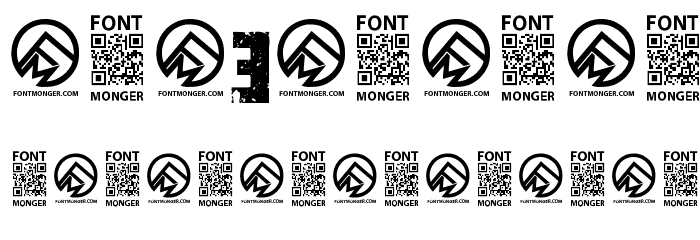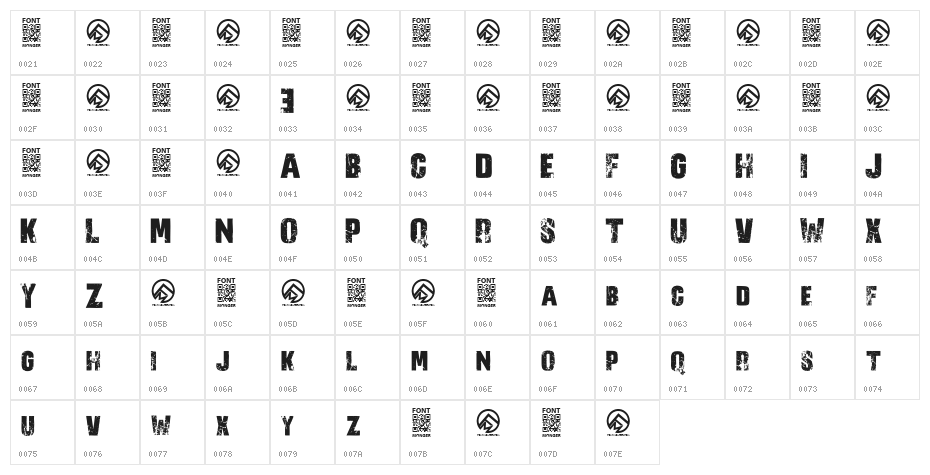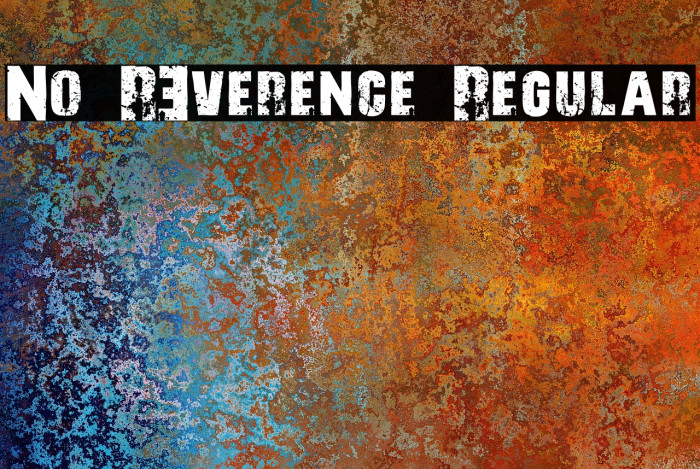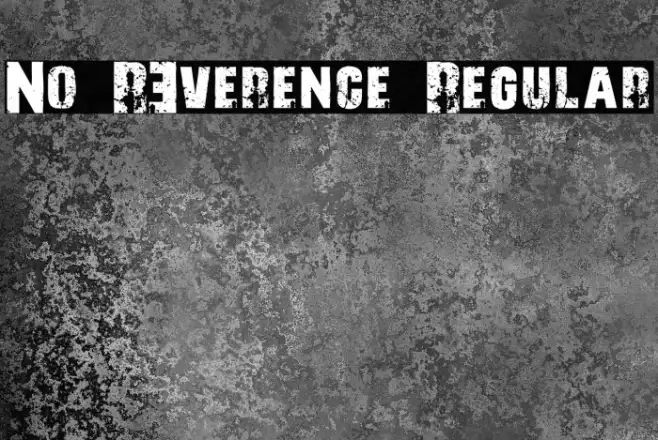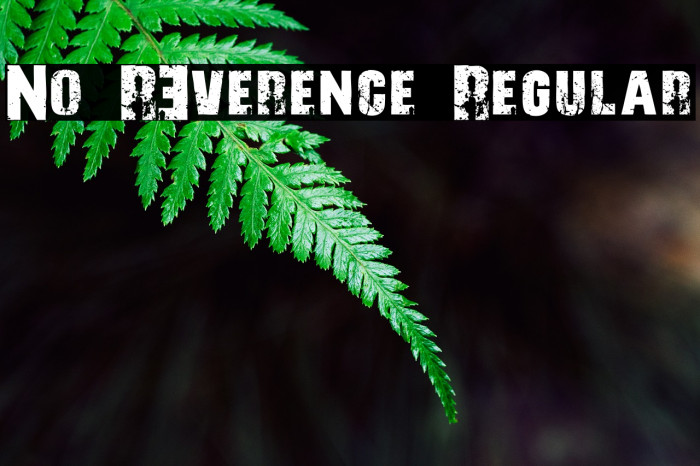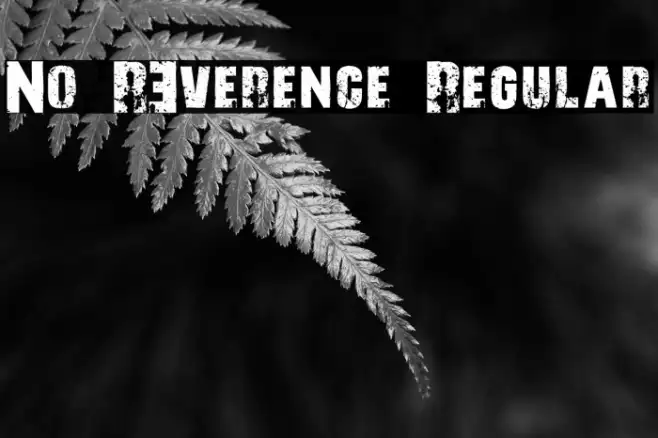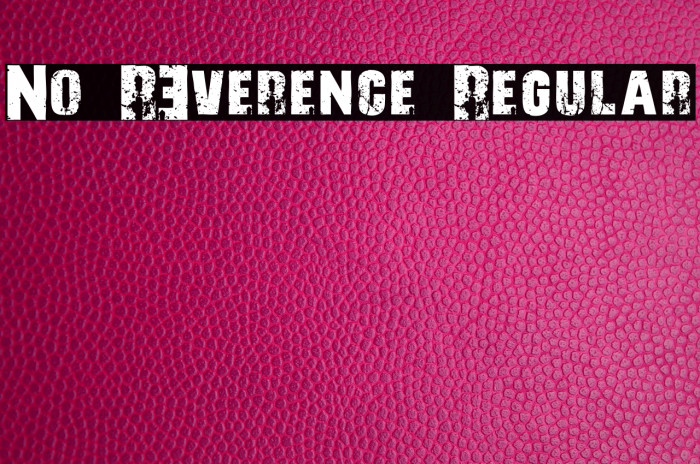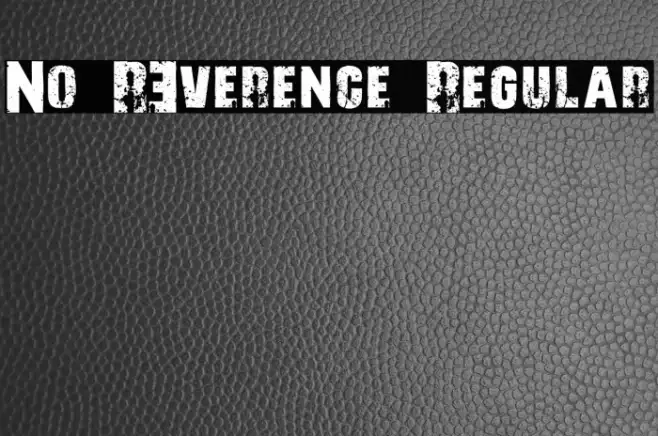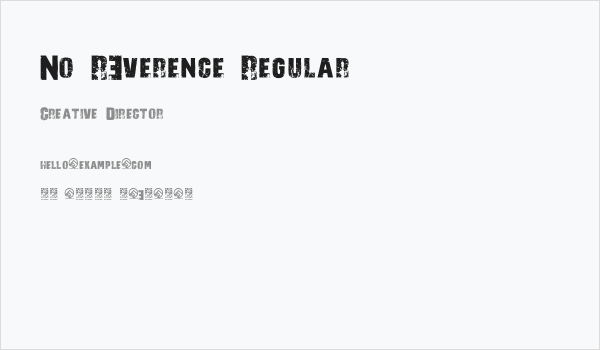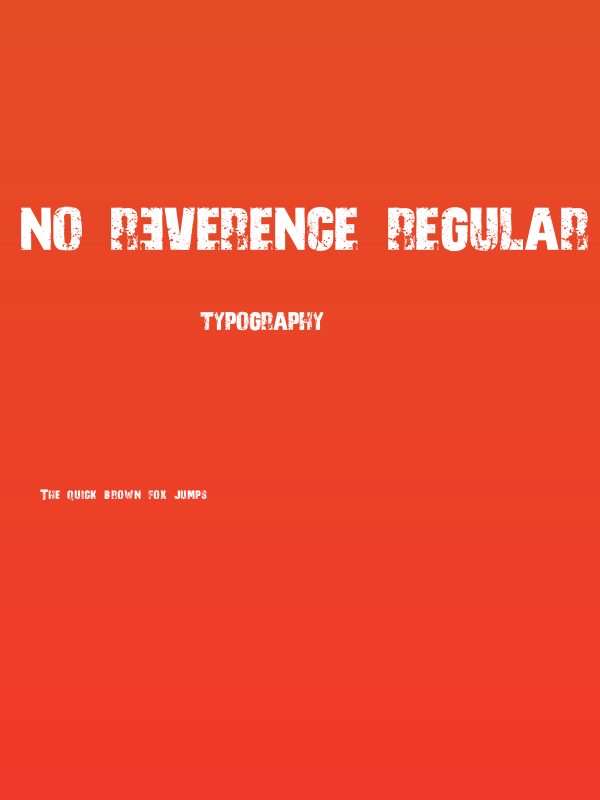
No R3verence Regular Font
No R3verence Regular Description
This font features a bold, distressed style with a grunge texture that gives it a rugged and edgy appearance. The uppercase letters are prominent and impactful, making it suitable for attention-grabbing designs. The texture within each character varies, adding a unique and dynamic feel to the text. The font maintains a consistent weight throughout, with a strong presence that is ideal for creating a bold statement. The characters are evenly spaced, ensuring readability despite the distressed effect. This font is perfect for projects that require a raw, urban, or industrial aesthetic.
Overall StyleGrunge, Urban, Industrial
Proposed ProjectsIdeal for posters, album covers, streetwear branding, and event flyers.